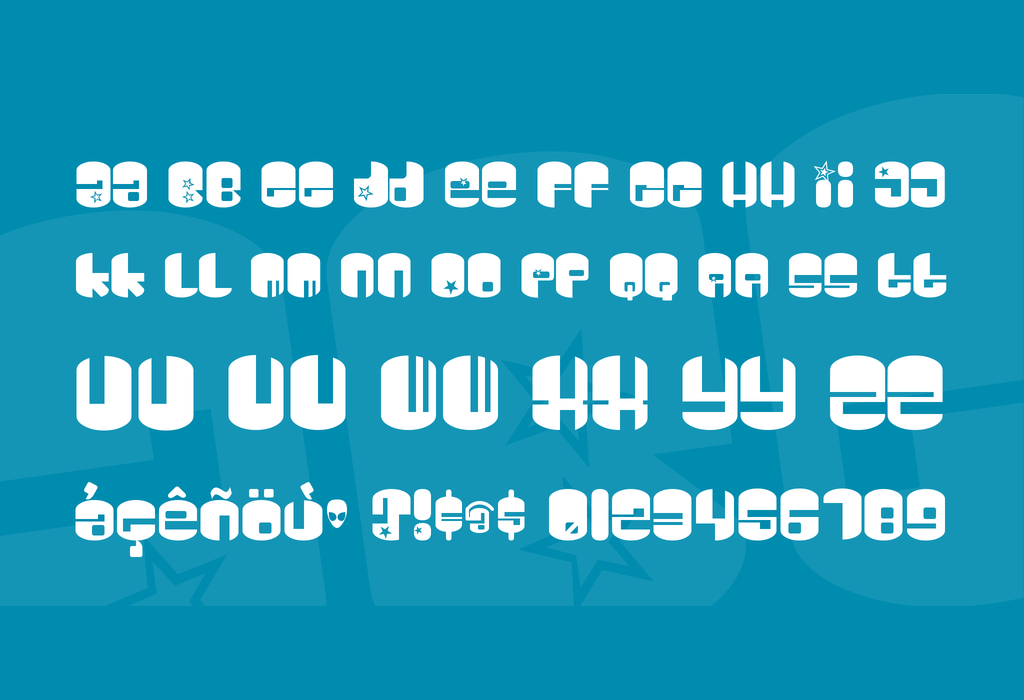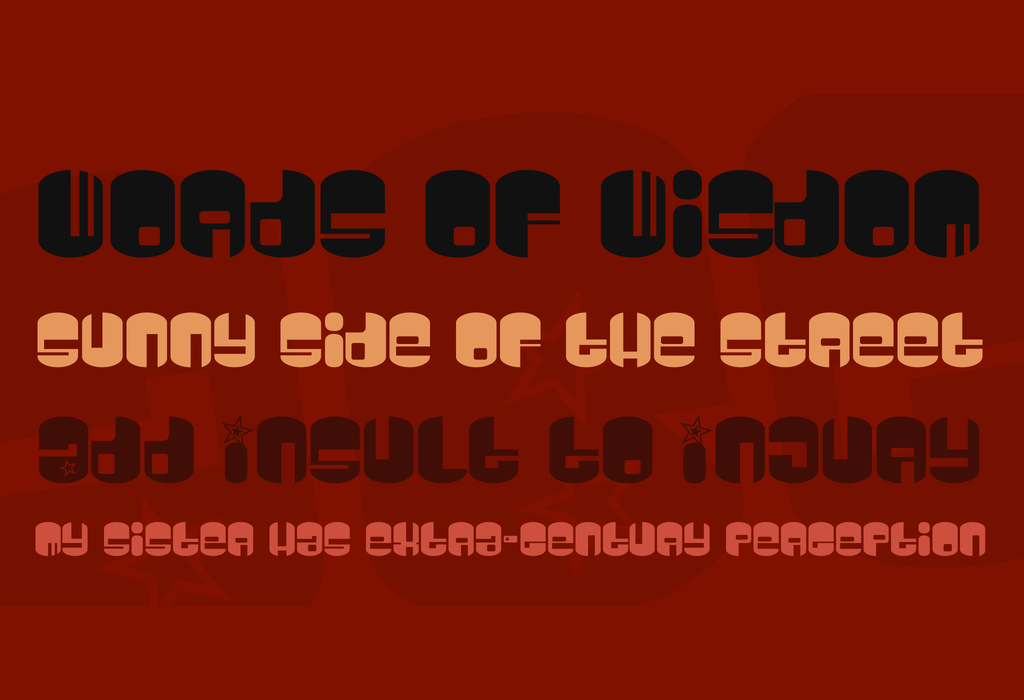
Galaxy Free Font is a spacey futuristic font. The capital letters with holes have stars. Free download for personal use. A commercial license is available at here.
Designed by Fontalicious